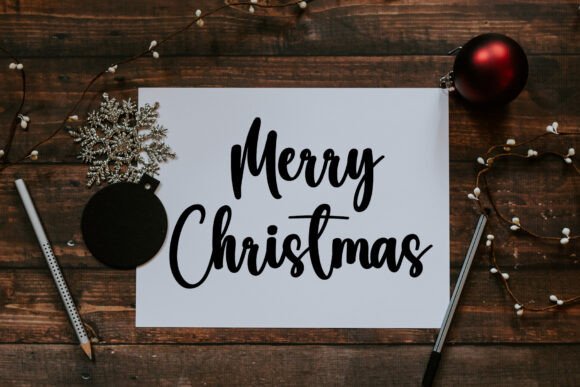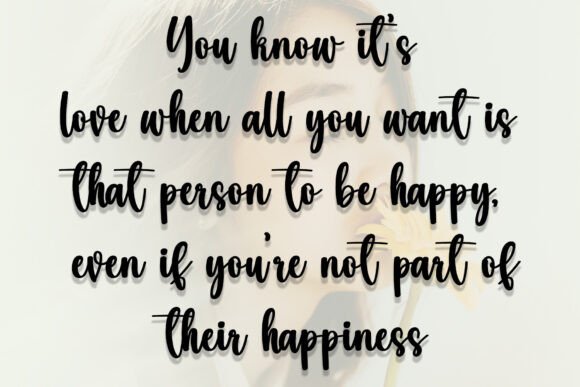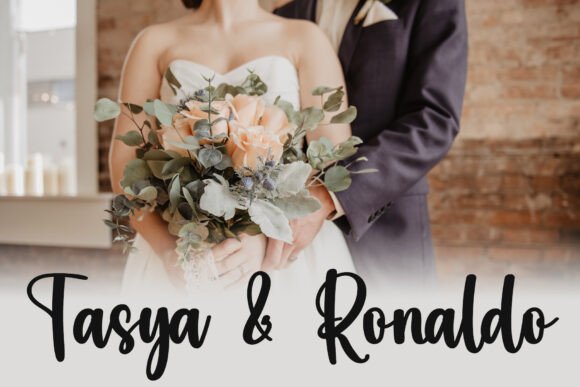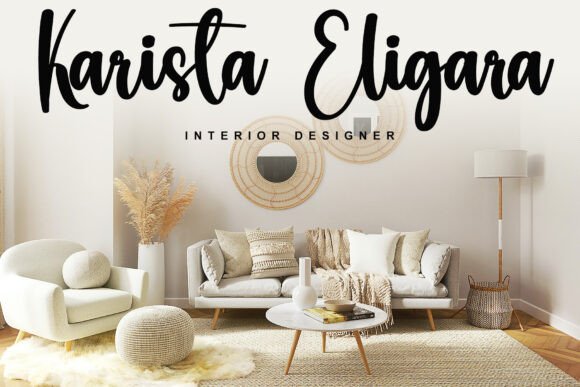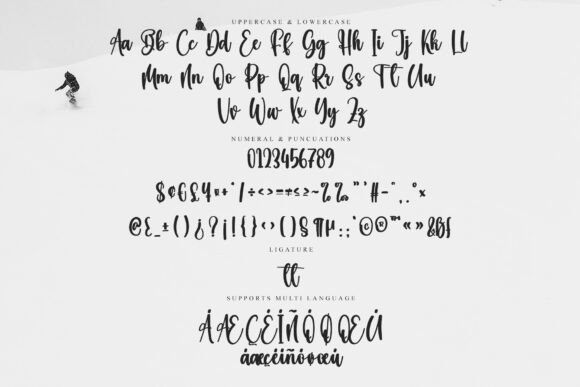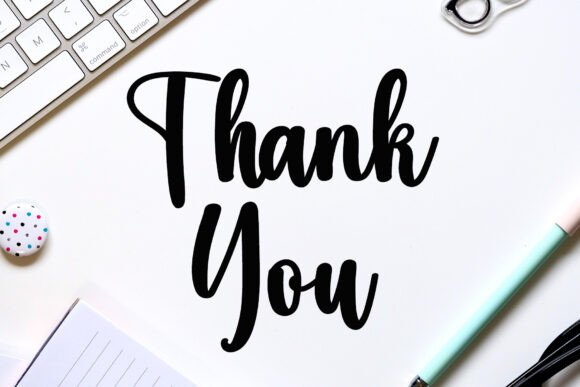
Grateful Valentine Font: Elevate Your Designs with Timeless Elegance
Are you searching for a font that exudes sophistication, elegance, and a touch of modern flair? Look no further than the Grateful Valentine Font, a stunning handwritten typeface that is sure to elevate your designs to new heights. Inspired by the timeless classics of calligraphy, this beautiful font boasts a contemporary atmosphere and impeccable form, making it the perfect choice for designers and crafters alike.
What is Grateful Valentine Font?
Grateful Valentine Font is a stylish handwritten font that is characterized by its balanced and varied letterforms. Designed to enhance the beauty of your projects, this font is perfect for a wide range of applications, from romantic getaways and wedding invitations to branding, packaging, and digital marketing materials. With its unique blend of classic and modern elements, Grateful Valentine Font is sure to add a touch of sophistication and elegance to any design.
Key Features of Grateful Valentine Font
- Handwritten with love: Grateful Valentine Font is a carefully crafted handwritten font that boasts a warm, personal touch.
- Contemporary atmosphere: With its sleek, modern design, this font is perfect for designers and crafters who want to add a touch of sophistication to their work.
- Impeccable form: Each letterform has been meticulously designed to ensure that the font is both beautiful and legible.
- Balanced and varied: The font features a range of letterforms, ensuring that your designs are always visually interesting and engaging.
Why Choose Grateful Valentine Font?
There are many fonts on the market that claim to offer a touch of elegance and sophistication, but Grateful Valentine Font stands out from the crowd. Here are just a few reasons why designers and crafters are falling in love with this beautiful font:
- Unique and distinctive: Grateful Valentine Font is a one-of-a-kind typeface that will set your designs apart from the competition.
- Elegant and sophisticated: This font is perfect for designers who want to add a touch of luxury and refinement to their work.
- Versatile: Grateful Valentine Font can be used for a wide range of applications, from digital marketing materials to print projects.
How to Use Grateful Valentine Font
Using Grateful Valentine Font is easy. Here are just a few tips to get you started:
- Pair it with other fonts: Grateful Valentine Font pairs beautifully with other fonts, making it perfect for use in combination with other typefaces.
- Experiment with colors: This font looks stunning in a range of colors, from rich jewel tones to soft pastels.
- Use it for headings and titles: Grateful Valentine Font is perfect for use in headings and titles, where its elegant, sophisticated design can really shine.
If you’re looking for a font that will elevate your designs to new heights, look no further than Grateful Valentine Font. With its timeless elegance, impeccable form, and contemporary atmosphere, this beautiful font is sure to become a favorite among designers and crafters. Whether you’re working on a romantic getaway, a wedding invitation, or a branding project, Grateful Valentine Font is the perfect choice.